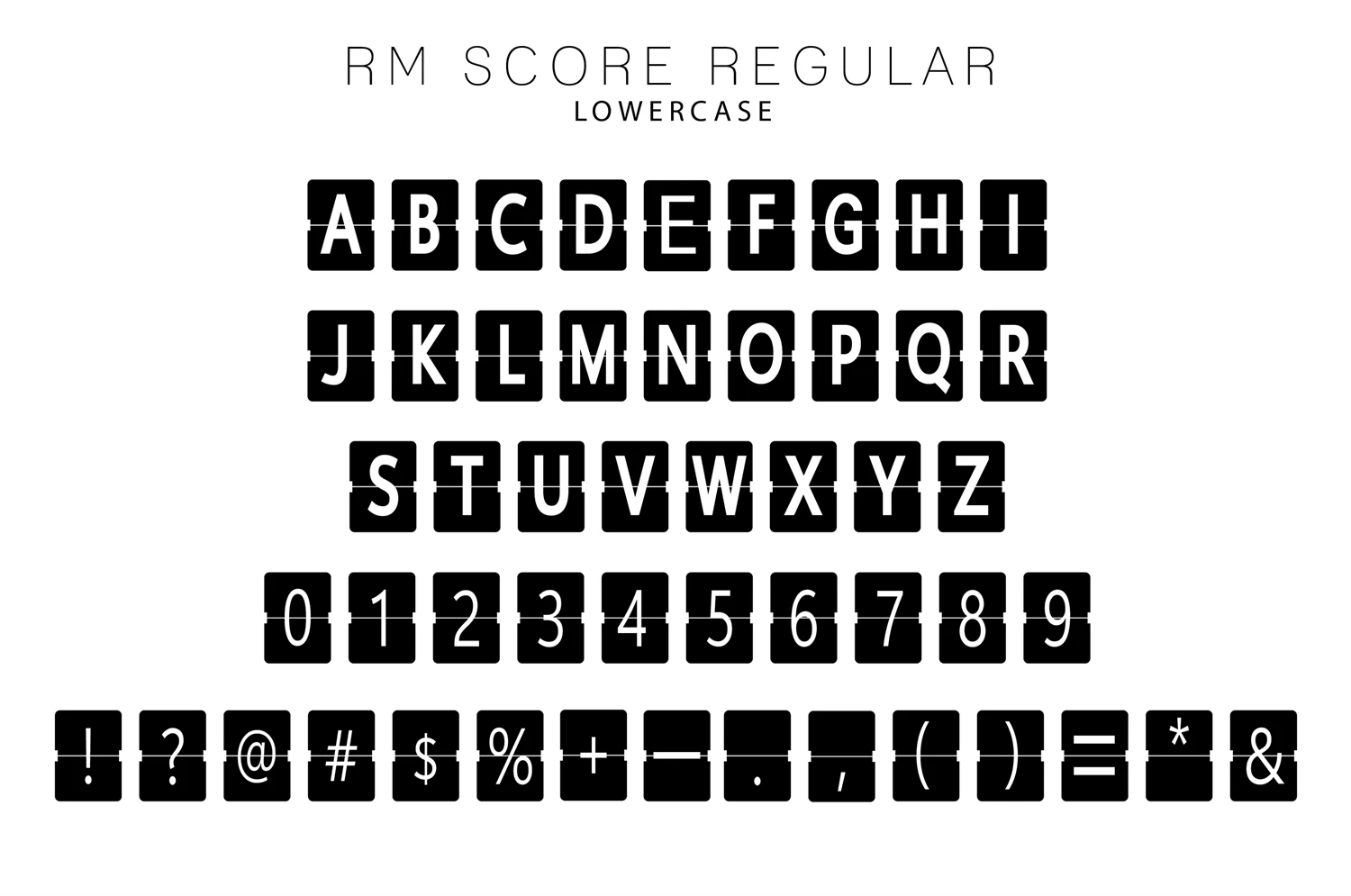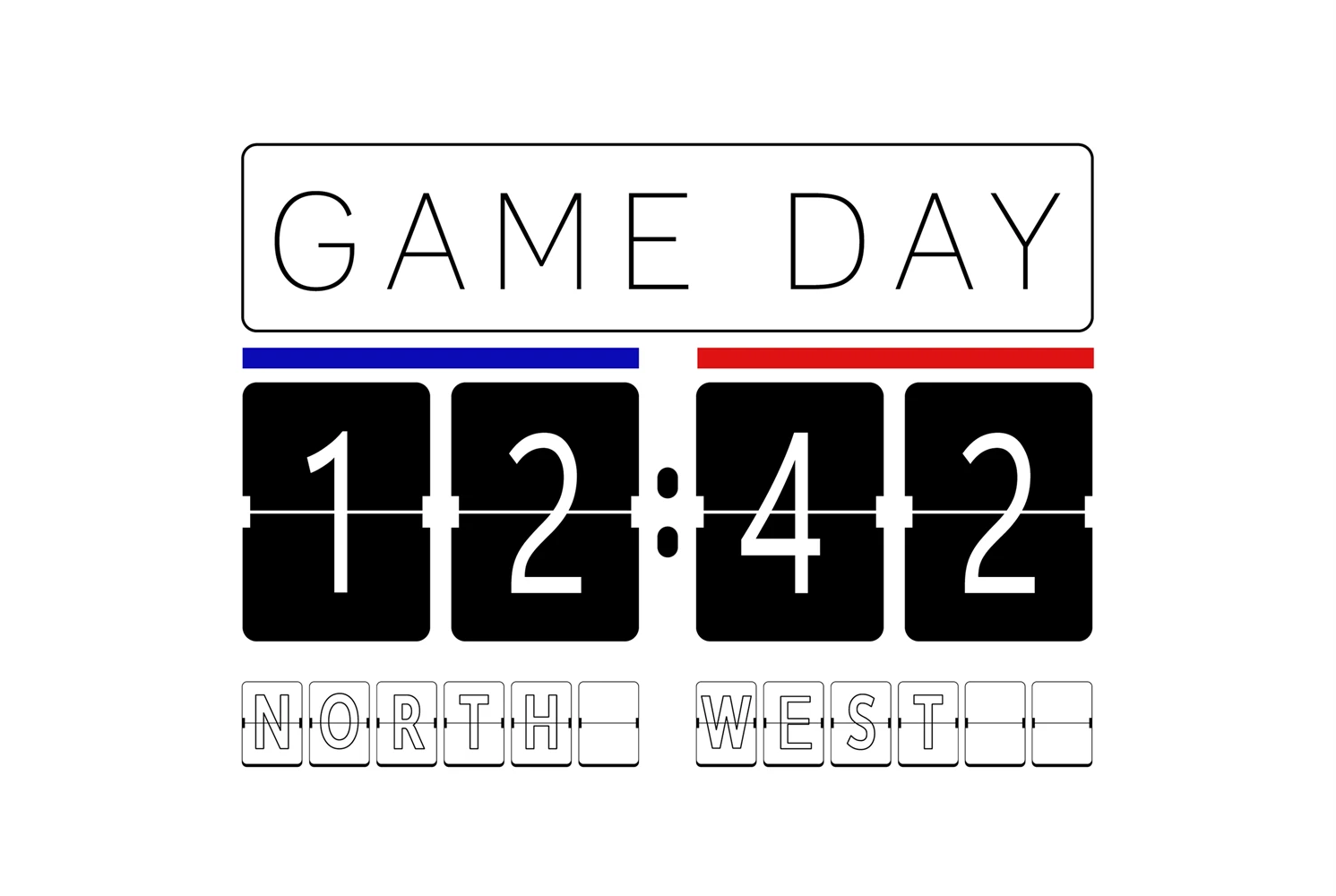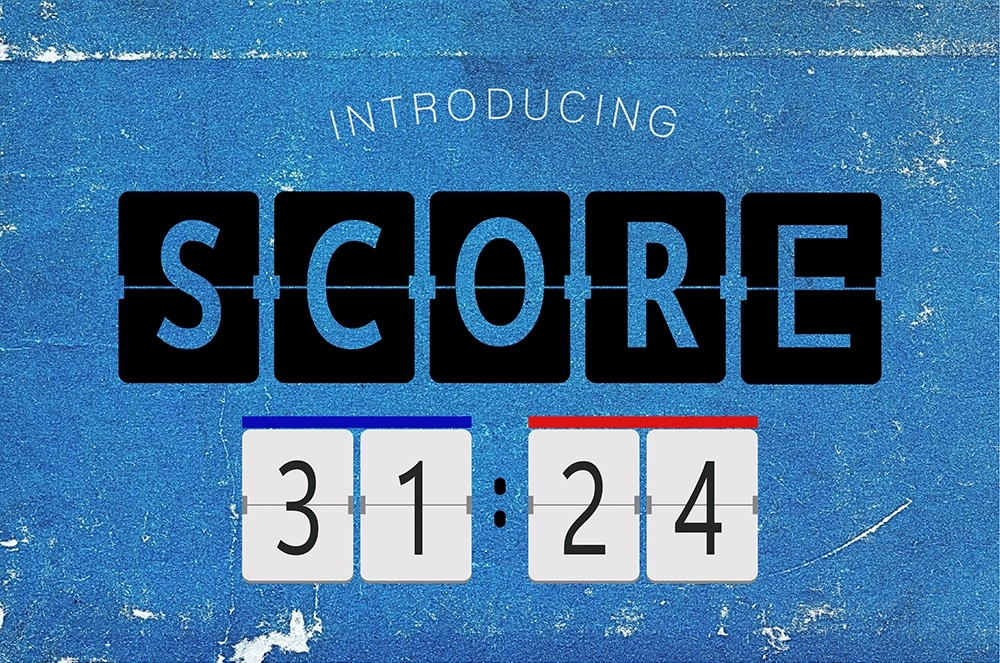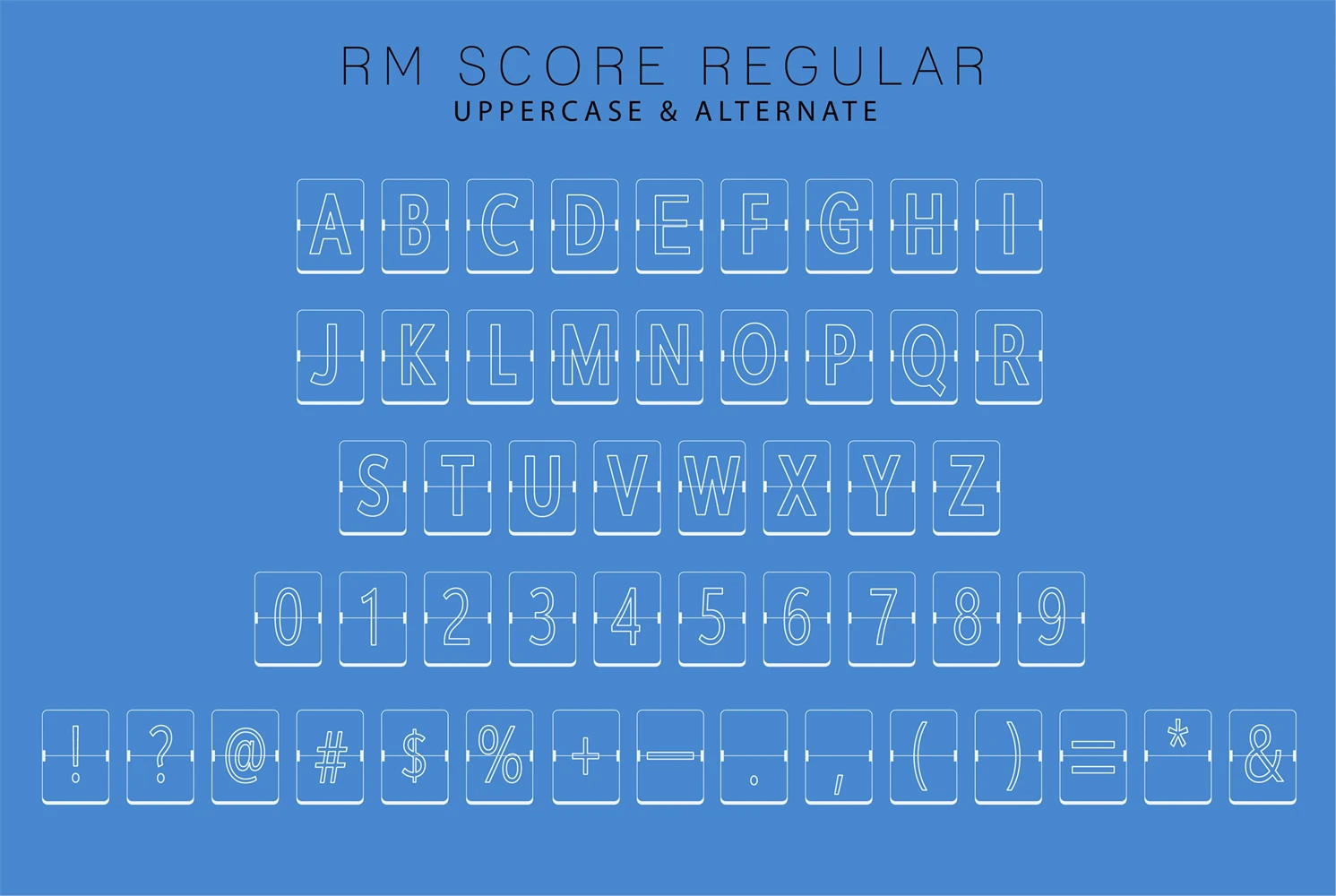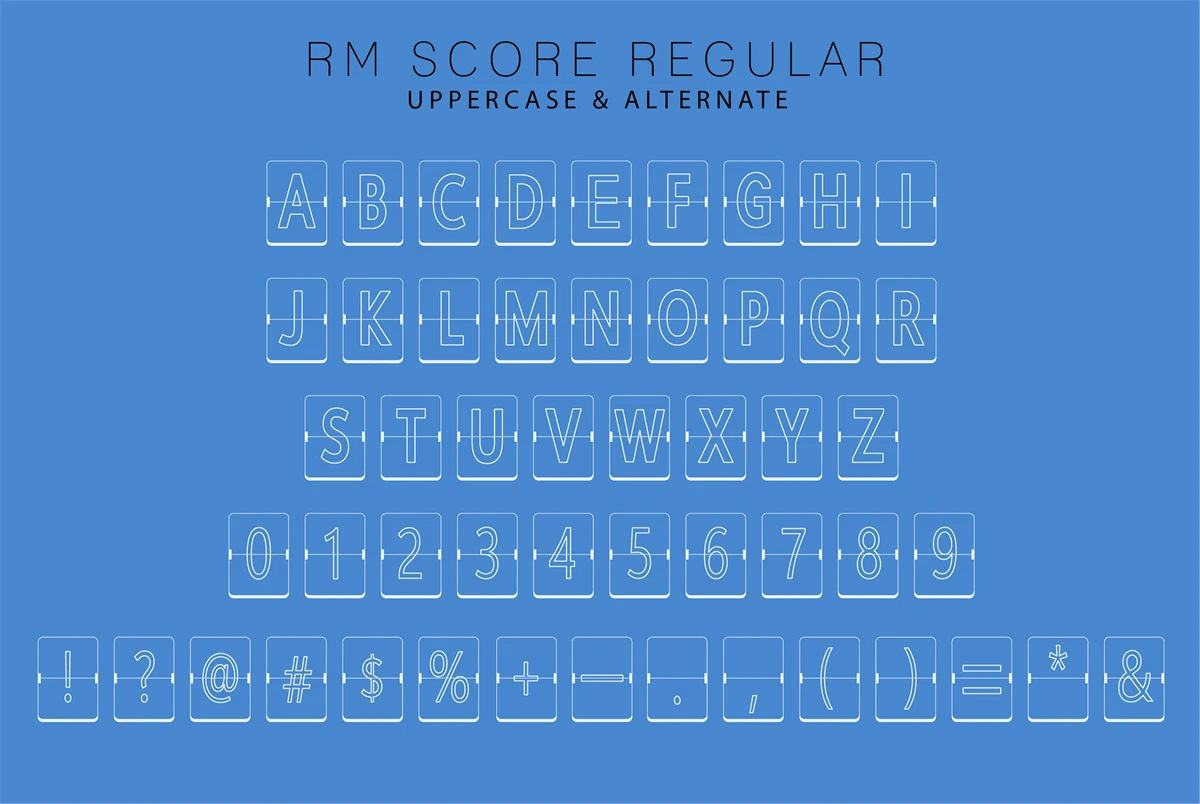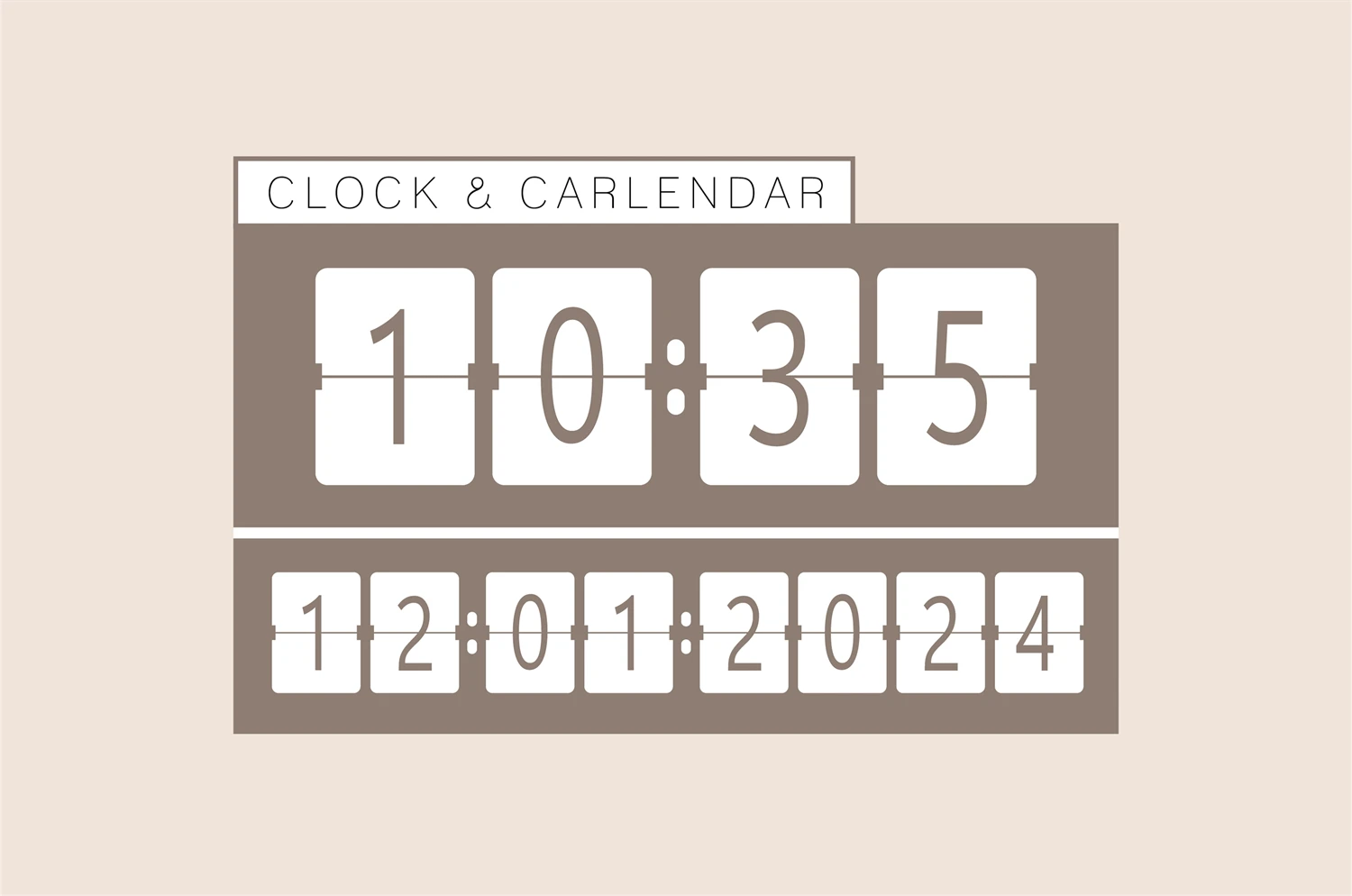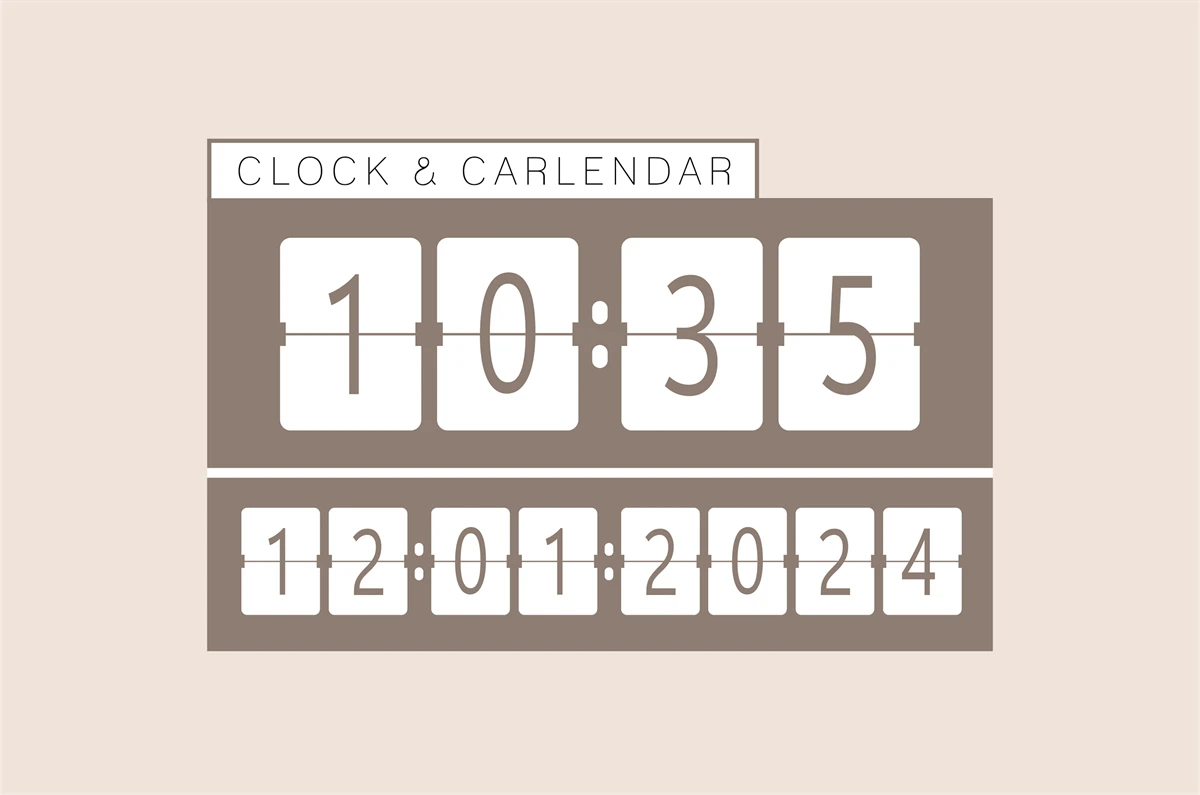
Experience the dynamic movement of sporting events directly in your creative projects with Score Font. This comprehensive typeface offers an authentic replication of flipboard style, traditionally found in sports scoreboards. With remarkable versatility, Score Font extends beyond its sports theme, effortlessly adapting to applications like calendar designs and digital clocks. Its user-friendly nature ensures that invoking this engaging, flipboard style is as easy as typing your next sentence.